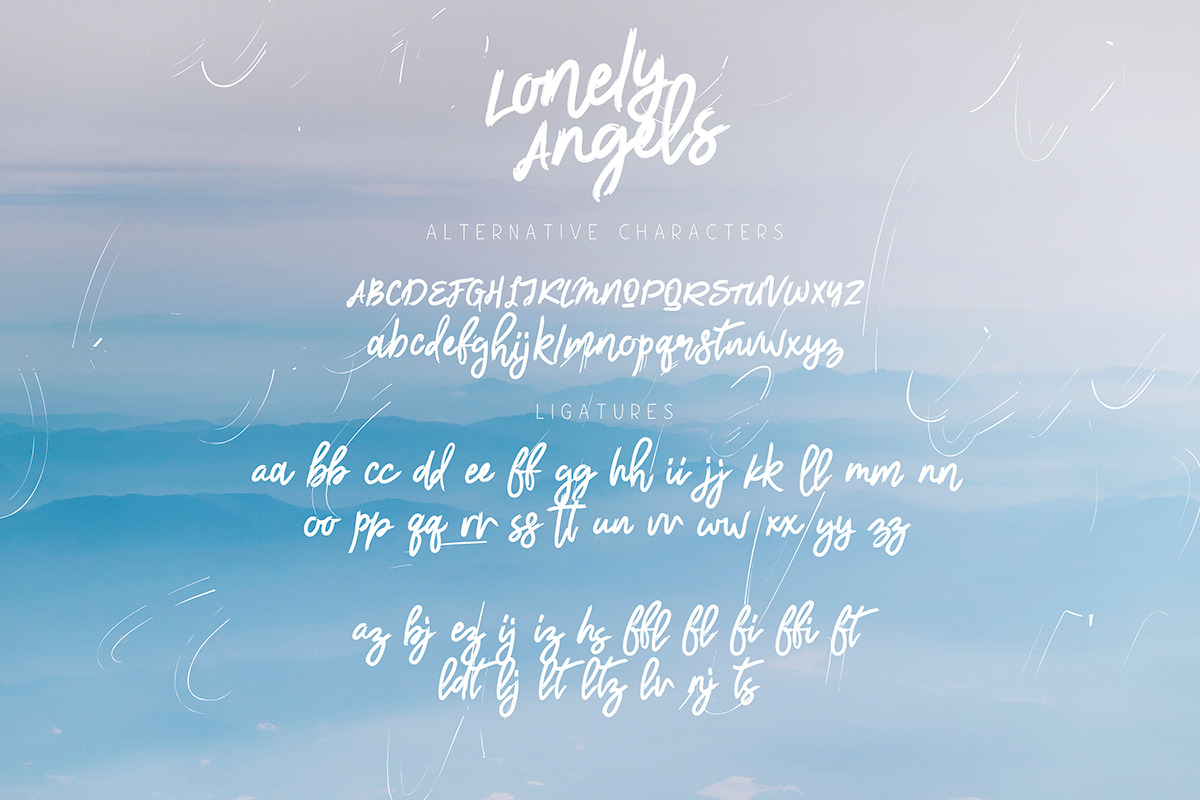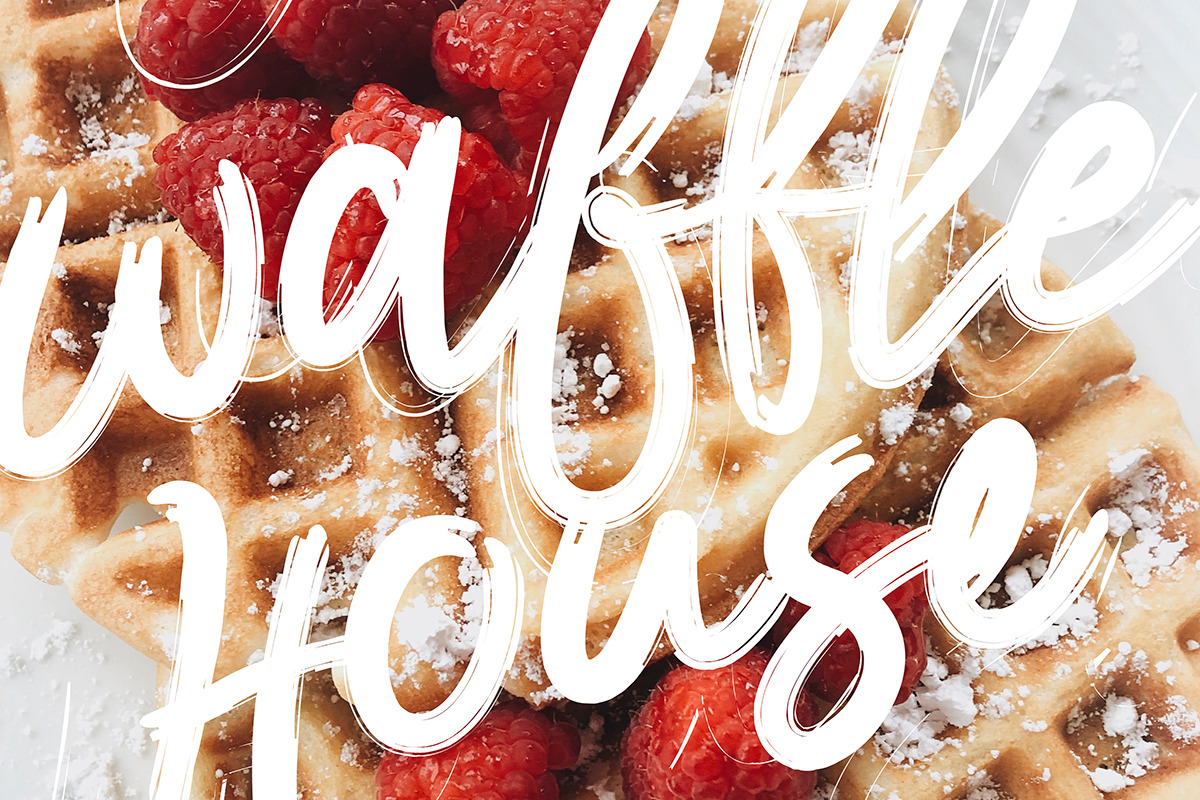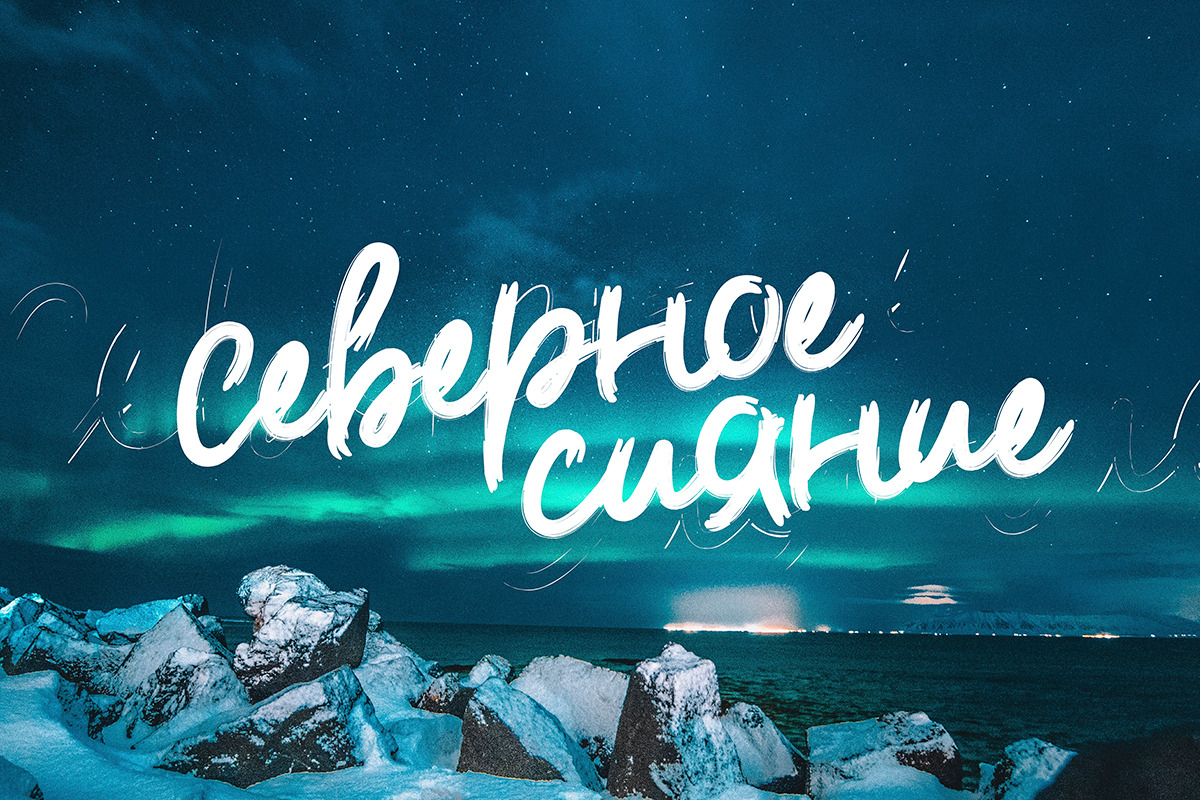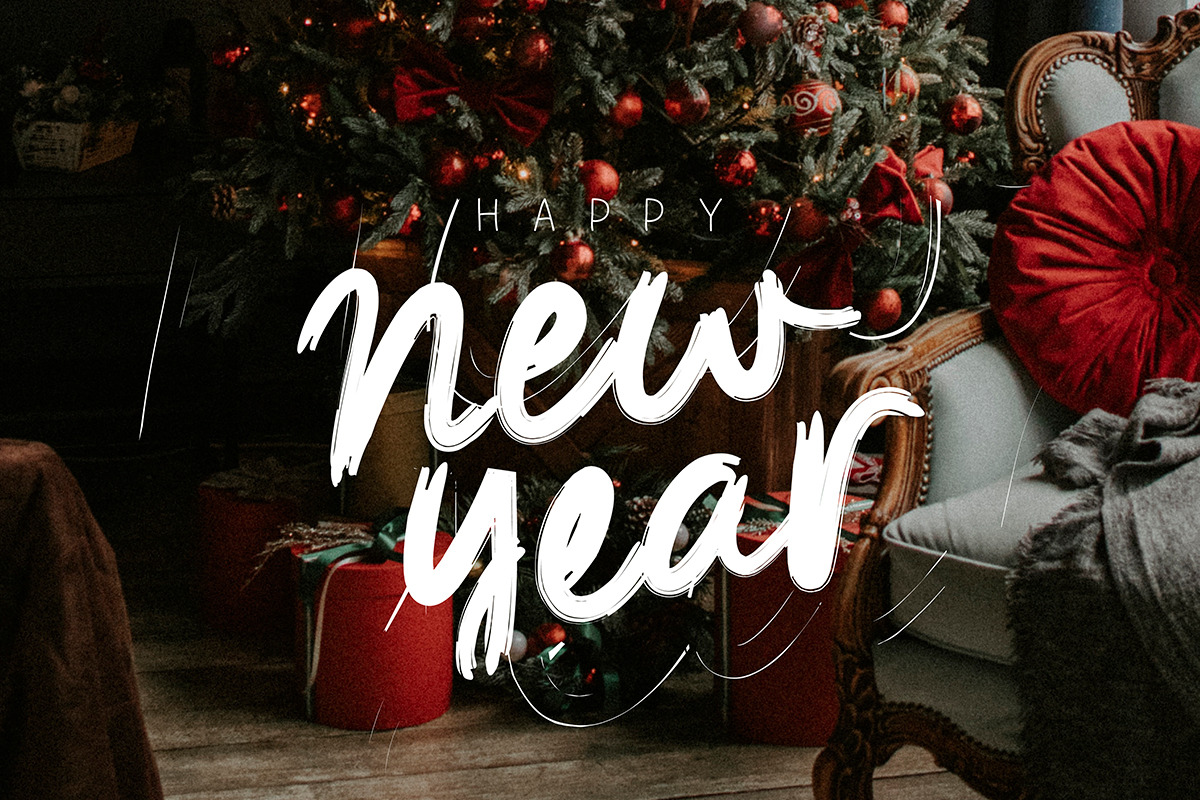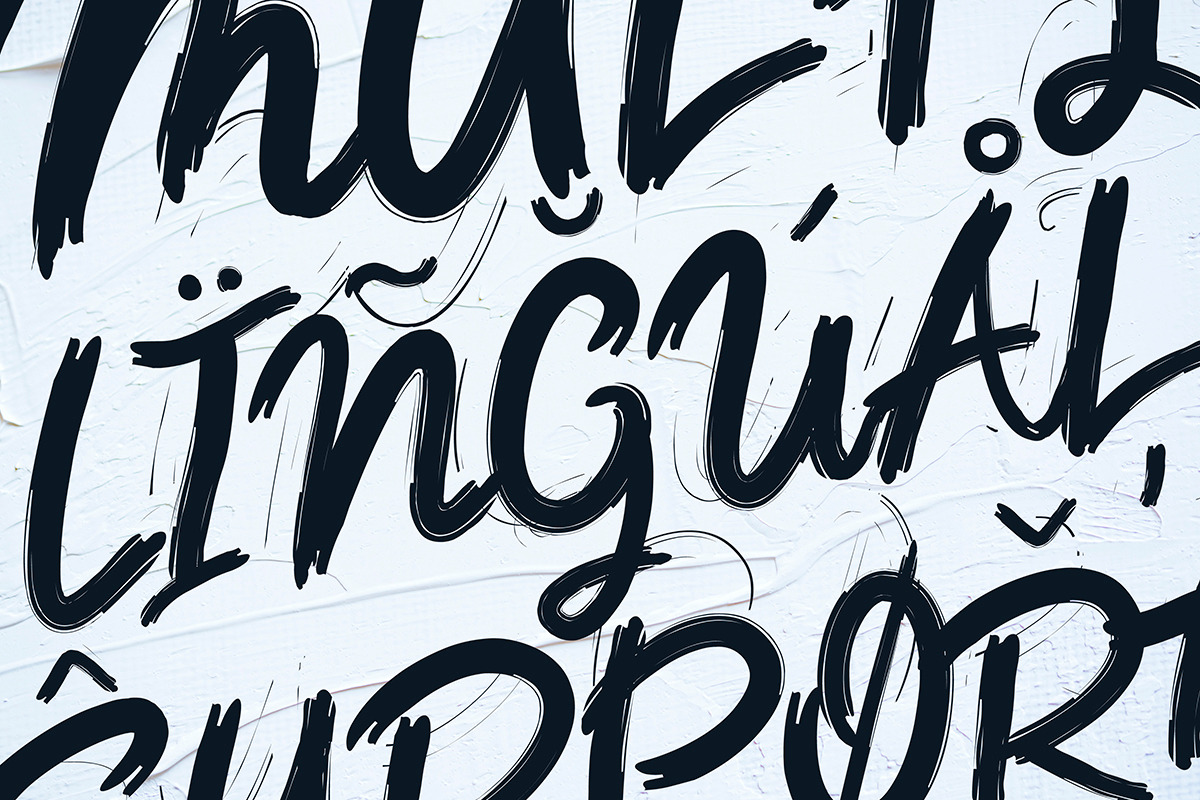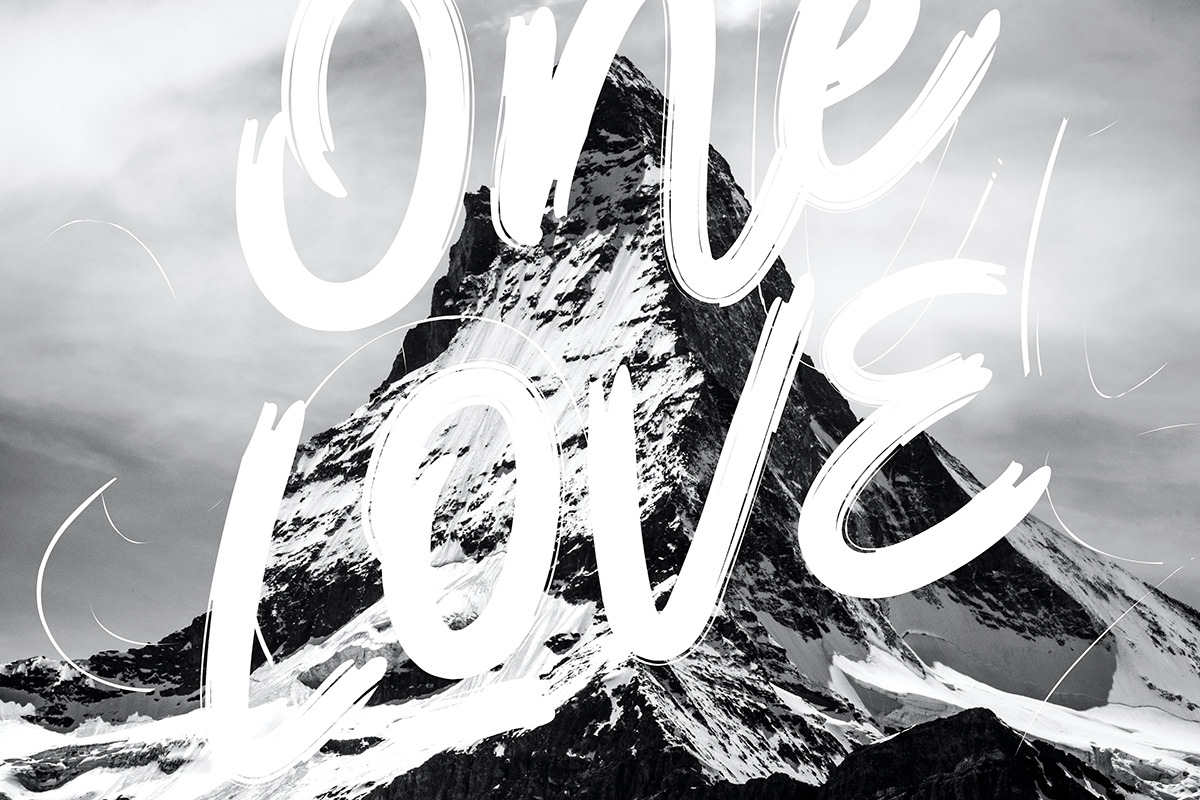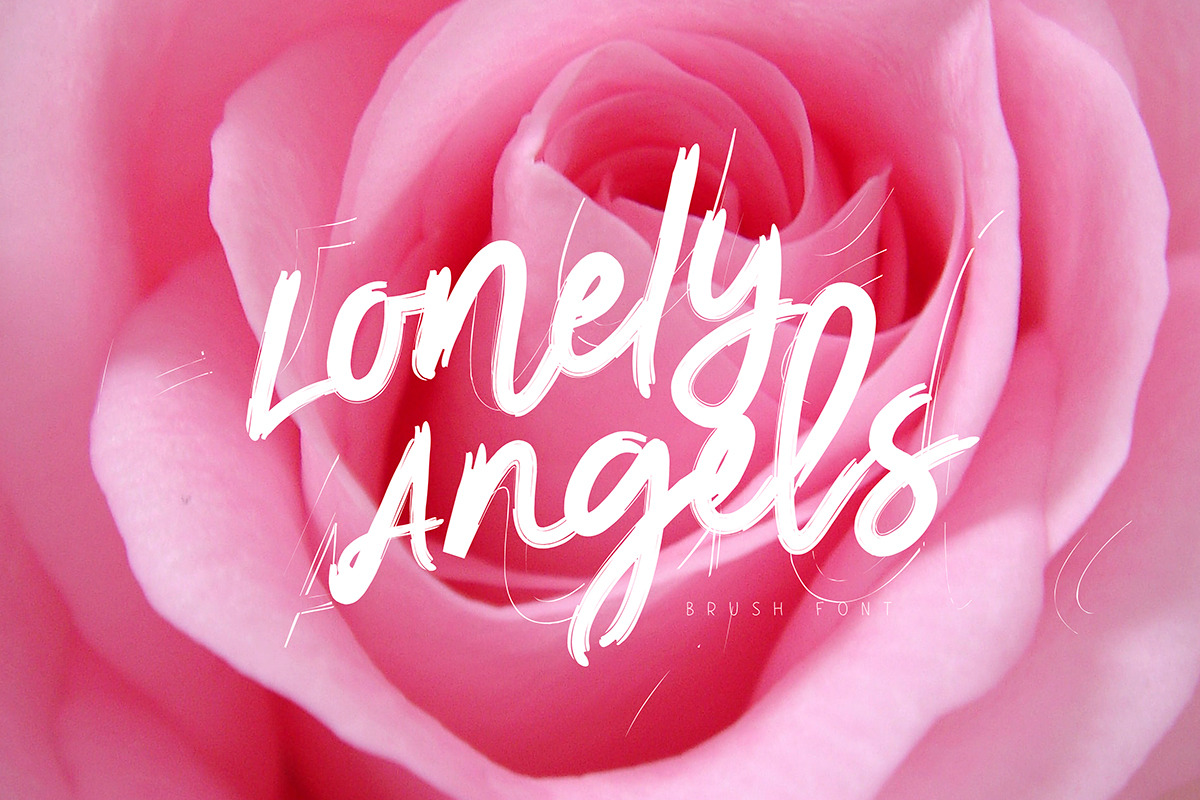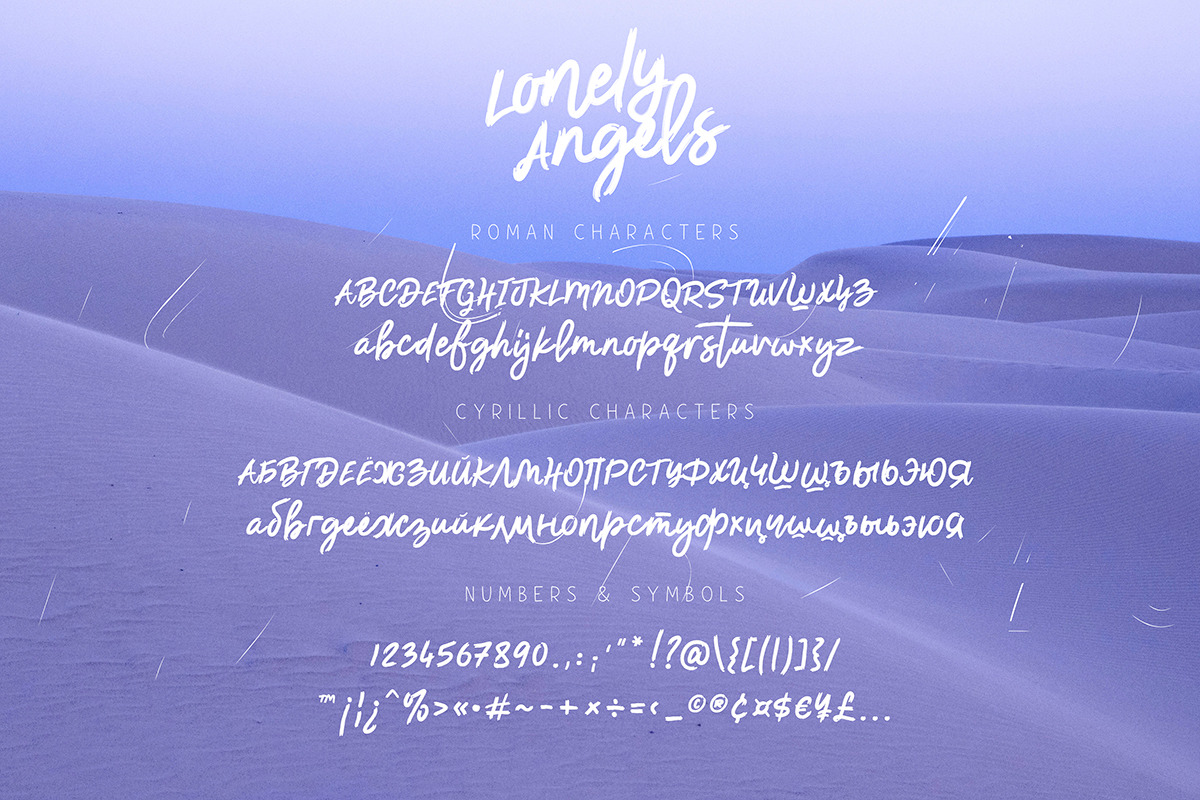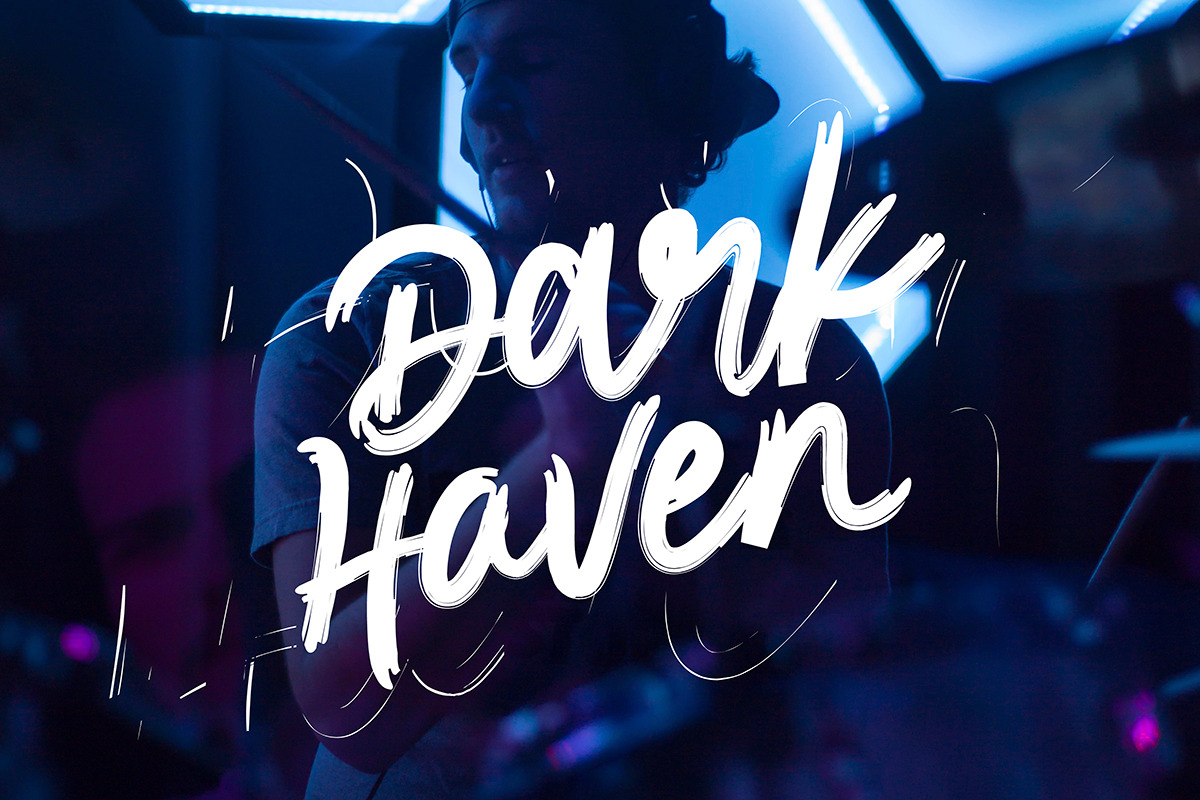
Lonely Angels Brush Font
Lonely Angels is a hand drawn brush font. It comes with uppercase and lowercase characters, large set of punctuation glyphs, numerals, cyrillic characters, set of alternative latin characters, ligatures and multilingual support.